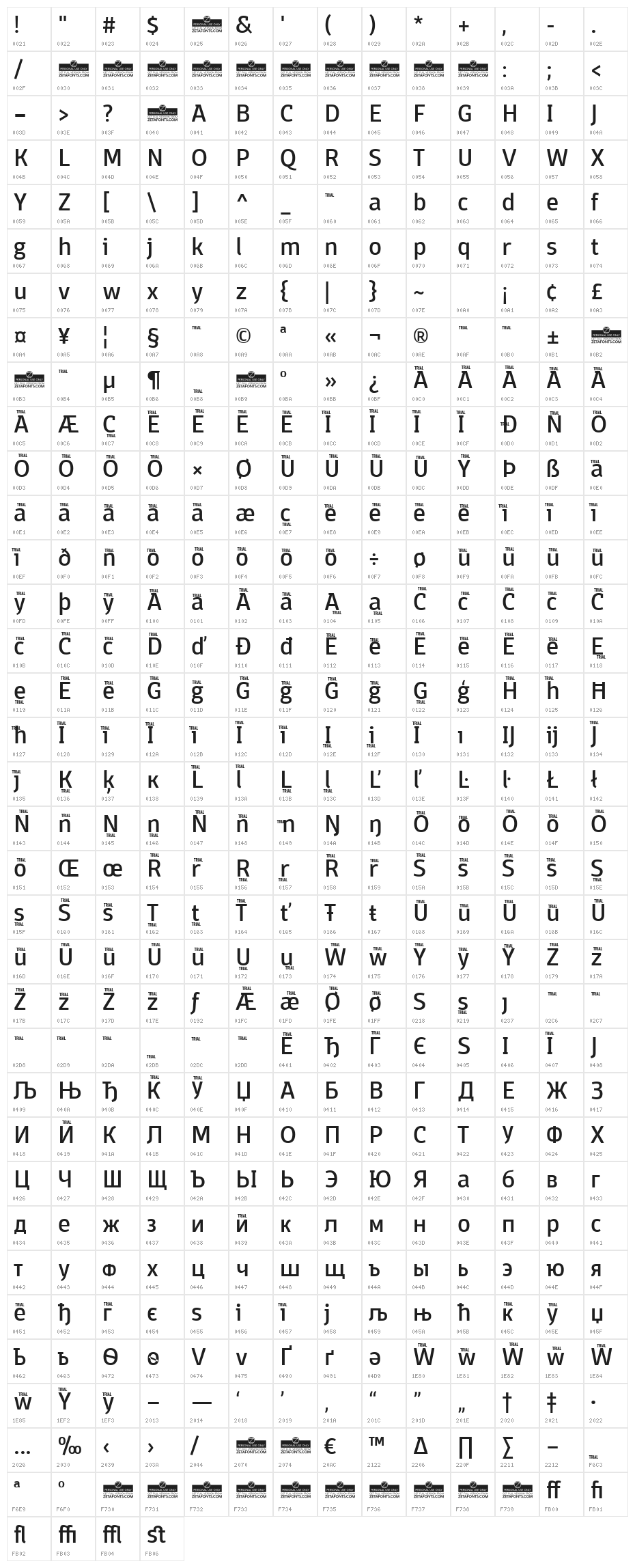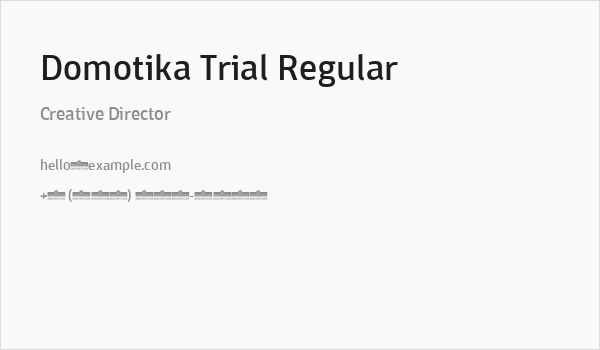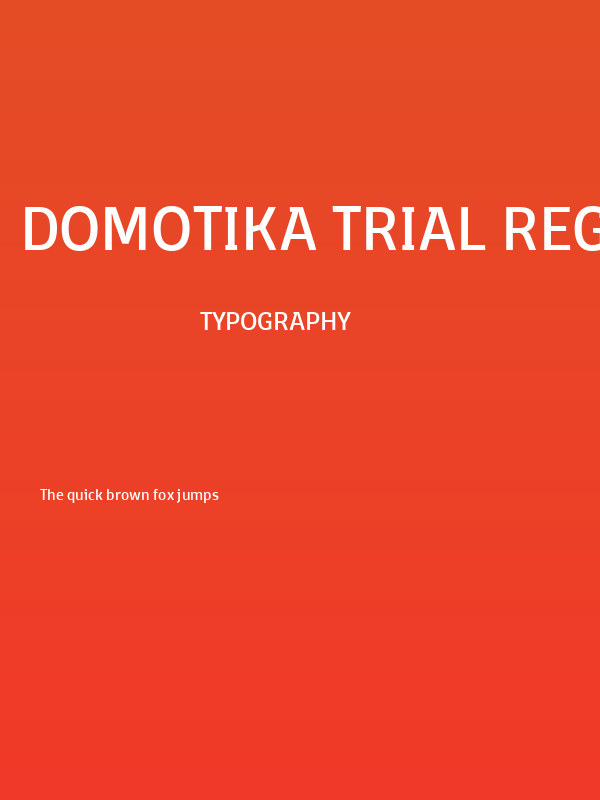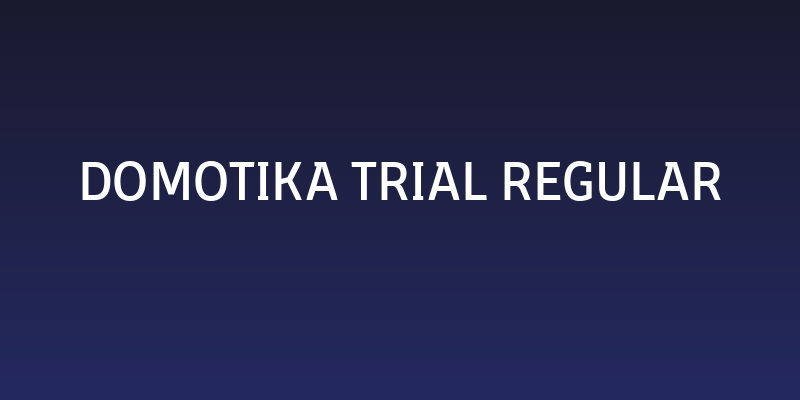
Domotika Trial Regular Font
Domotika Trial Regular Description
This font is a clean and modern sans-serif typeface characterized by its geometric shapes and uniform stroke widths. The uppercase and lowercase letters are well-proportioned, offering a balanced and harmonious appearance. The design is straightforward, with a focus on readability and simplicity, making it suitable for a wide range of applications. The numerals and special characters maintain the same clarity and consistency, ensuring that the font is versatile and functional. Its contemporary style is ideal for digital and print media, providing a professional and polished look.
| Proposed Projects | Ideal for branding, web design, editorial layouts, and corporate materials. |